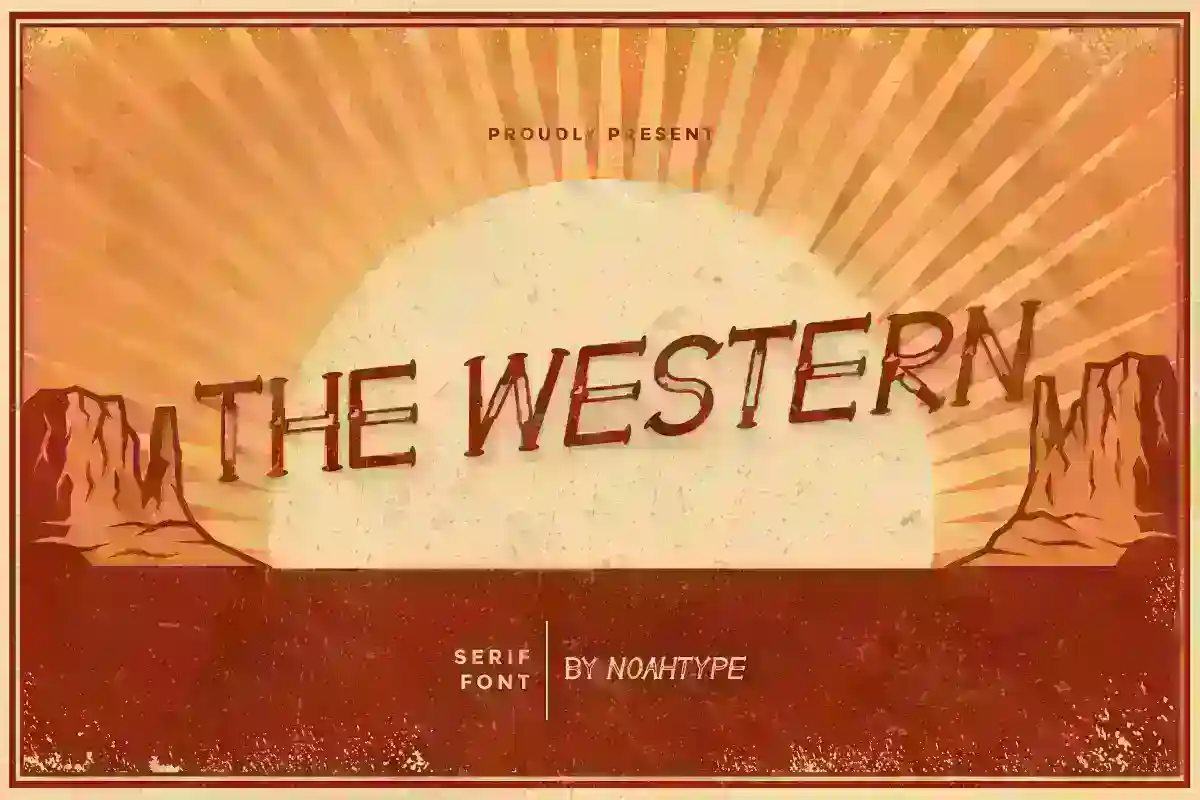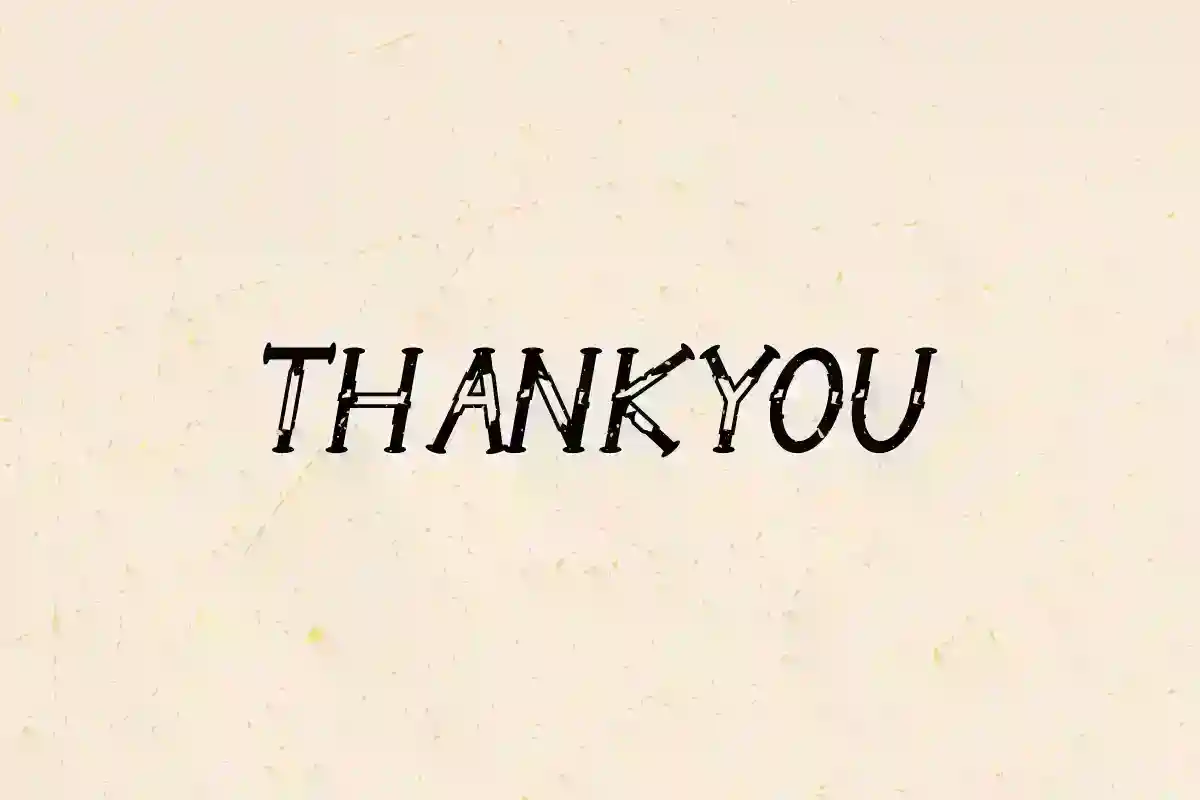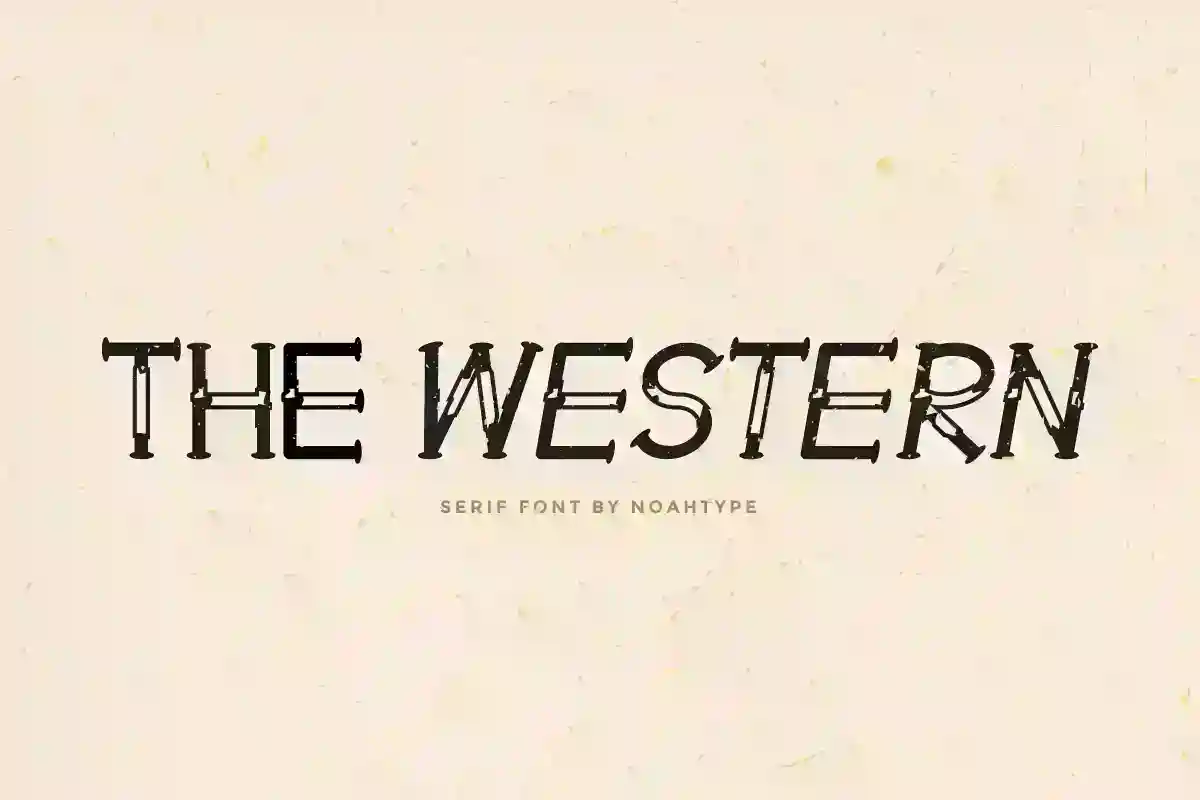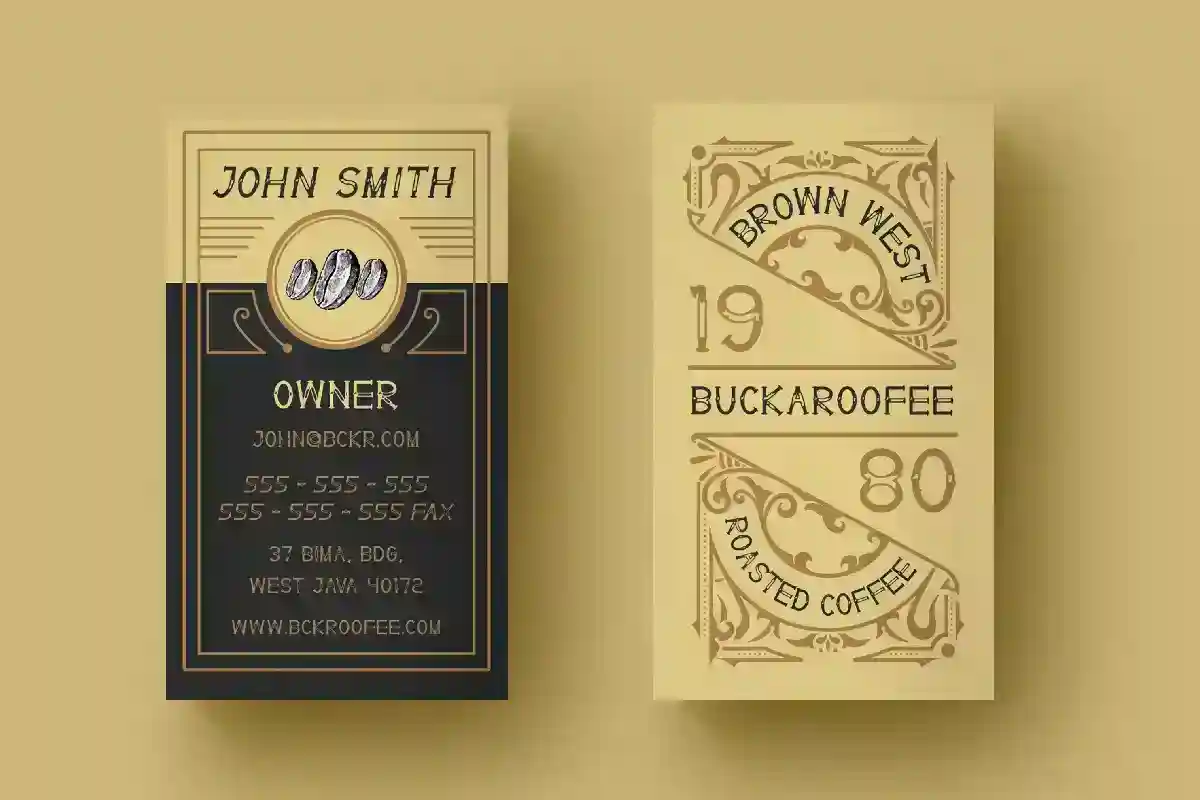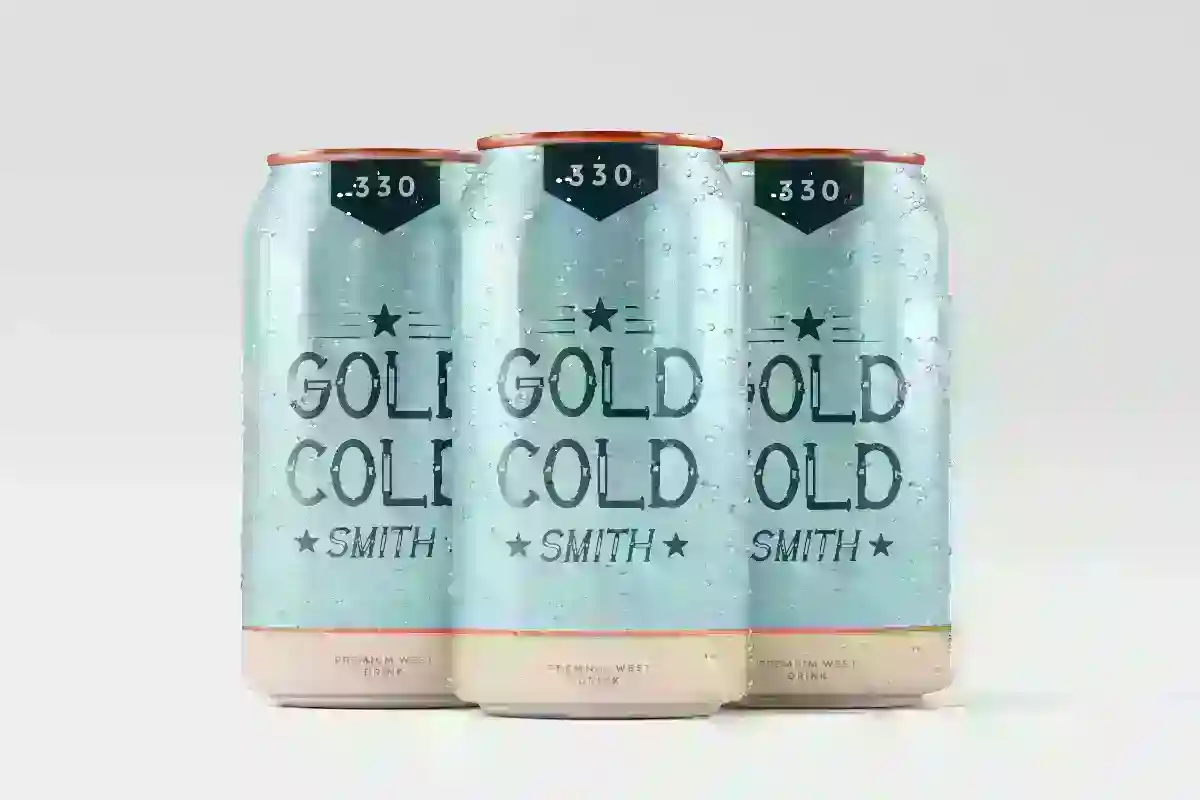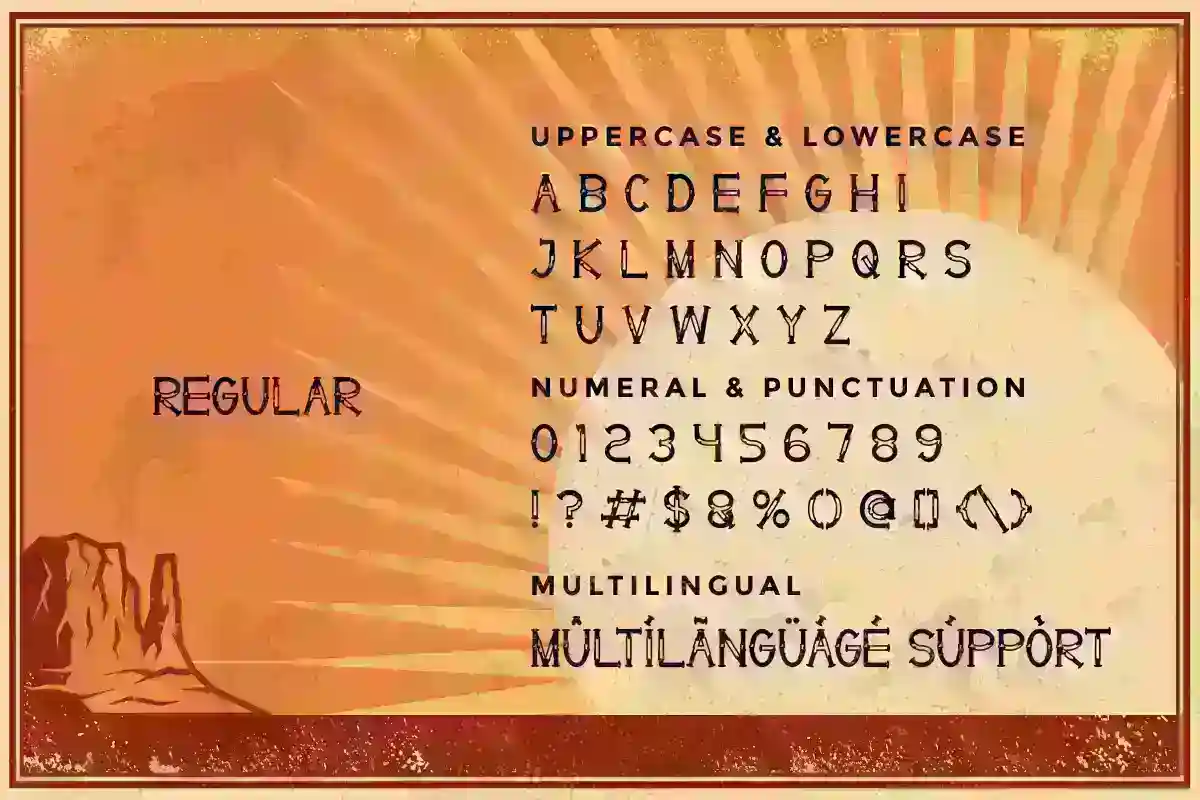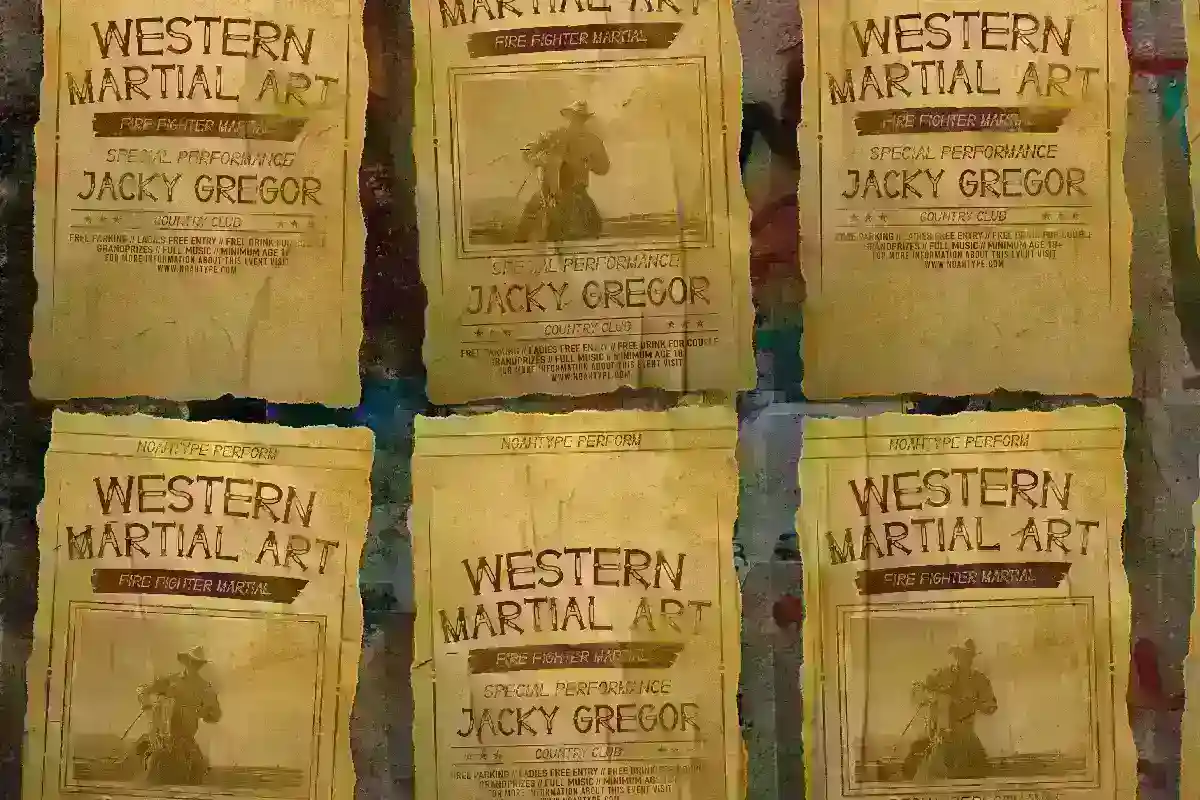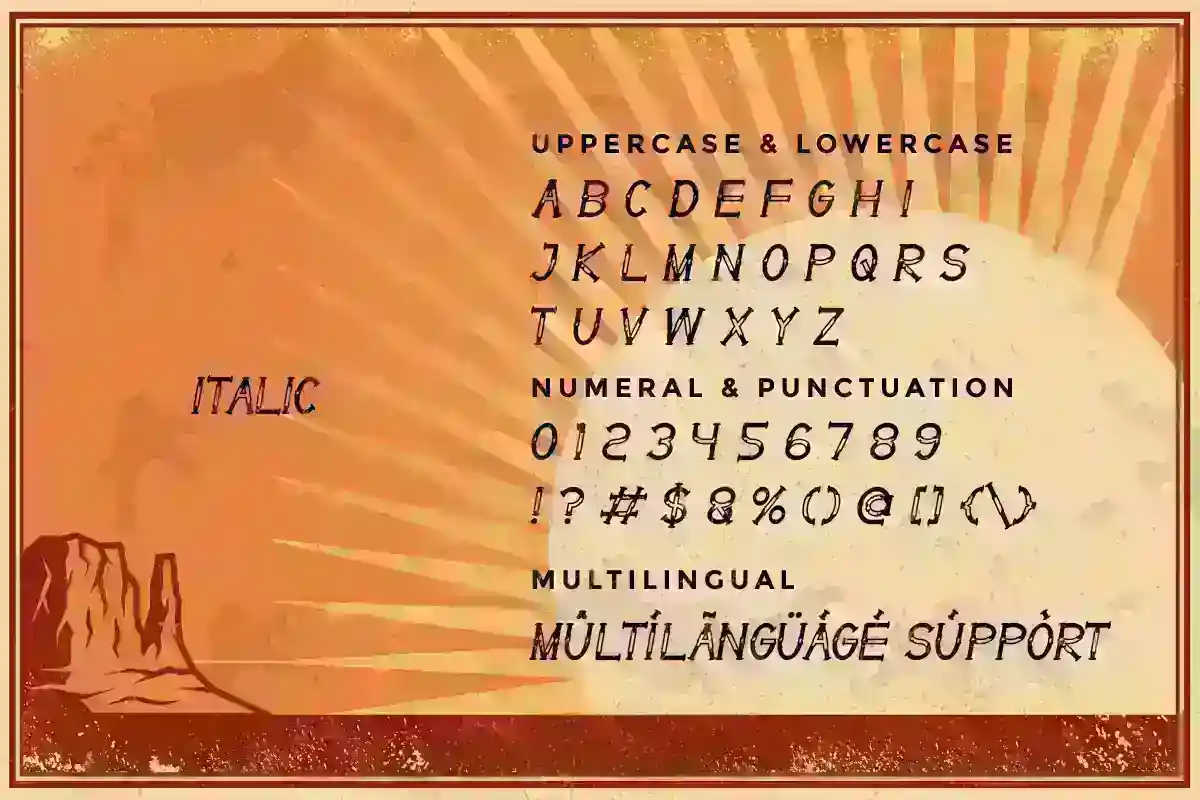
The Western is a casual serif vintage font inspired from American Sherriff Era. The font has a unique style that will bring the authentic excusive touch to the design. It will also works for restaurant, movies, songs, food and drinks etc
The Western Font has two styles : Reguler and Italic. It includes full set of Uppercase and Lowercase Basic Characters, Numerals and Punctuation, also it contains ligatures to make it awesome. You can also combine the two styles on the text like we did on the cover, so you will great even more unique and special font. The font is perfect for many projects, headlines, logos, poster, tittle, products, etc
Whether you’re working on branding for a whiskey label, designing a vintage poster, or creating a logo for a barbershop, The Western Serif Font offers the perfect blend of old-school grit and modern versatility. It’s bold enough to make a statement, yet refined enough to remain stylish and readable in both print and digital applications.